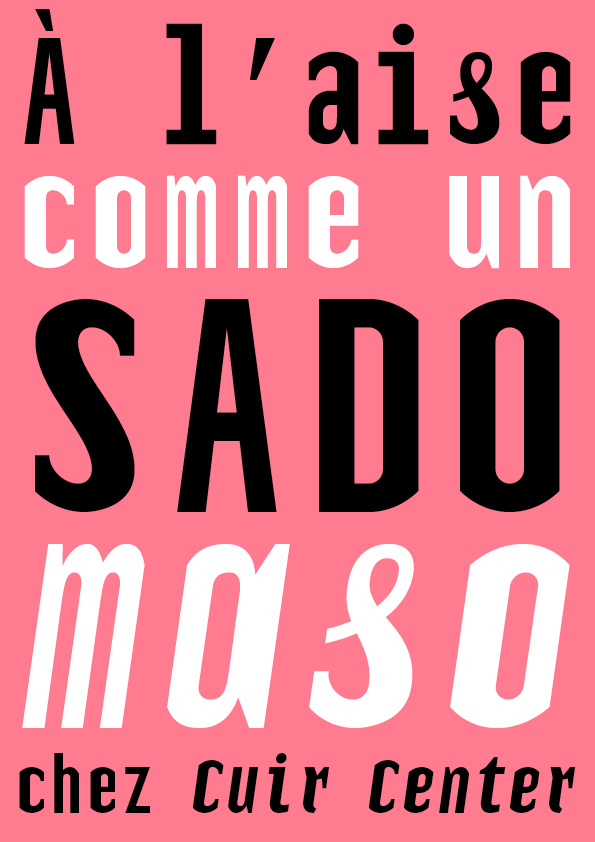
Telerysm Mono 2
Monosadomasochistic type
Telerysm Mono 2 is an uninhibited display font that explores the concept of monospace. The letters are maintained by force in their side-bearings, stretched, mutilated, tormented. The result, at least heterogeneous, is fully assumed. This typeface will be perfect for announcing your Saturday night’s bondage parties.